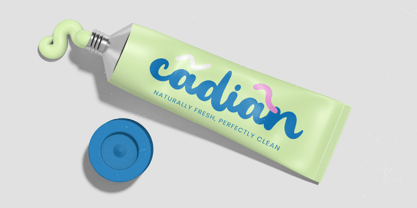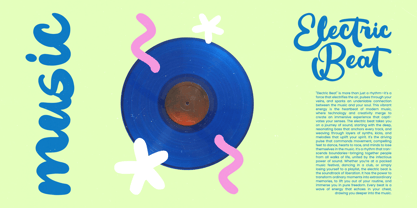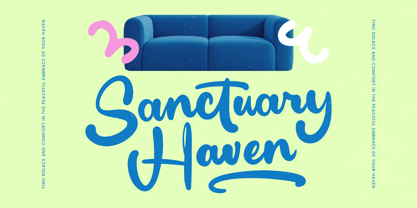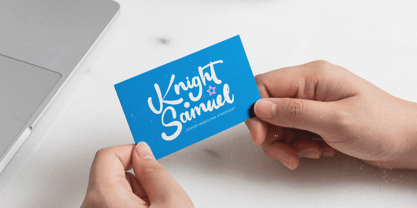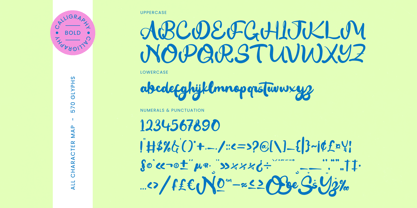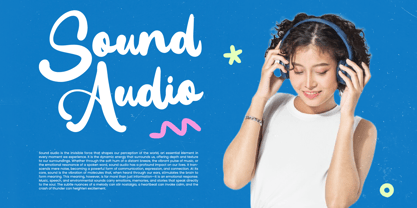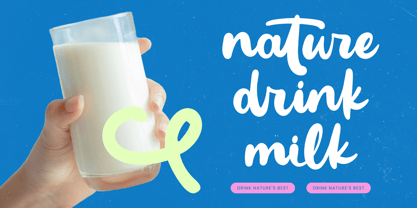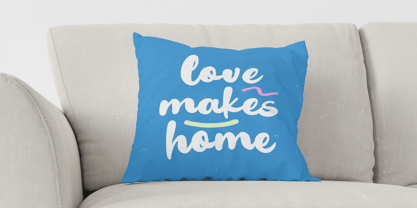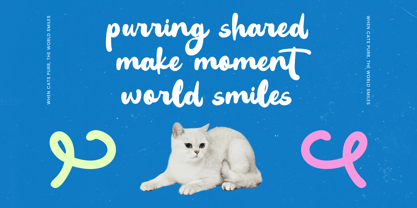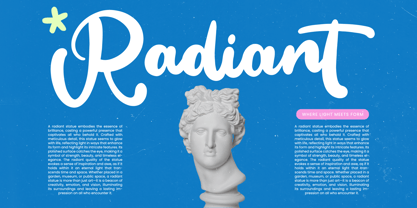
Create Paint
by Stylishtype Studio
The Create Paint Font Family was designed by Heru Utama Putra and published by Stylishtype Studio. Create Paint contains 2 styles and family package options.
Create Paint - Bold Calligraphy Font , from Stylishtype, Suitable for any projects such as: logos, branding projects, homeware designs, product packaging, mugs, quotes, posters, shopping bags, t-shirts, book covers, name card, invitation cards, greeting cards, label, photography, watermark, special events, and all your other luxury and beautiful projects that need a Luxury Script taste.